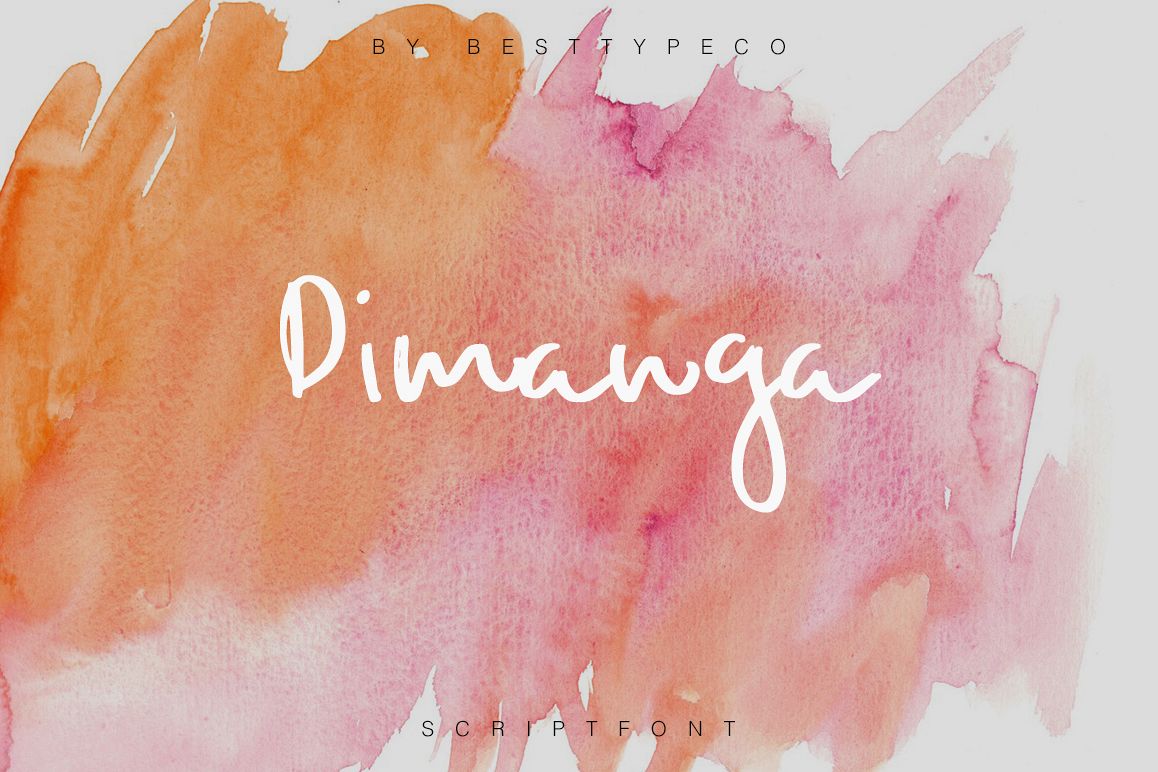
Dimanga - a new fresh handmade calligraphy font. Very suitable for greeting cards, branding materials, business cards, quotes, posters, and more!This font are perfect for wedding postcard. Or you can create perfect and unique design of your logo, blog, stationery, marketing, magazines and more :) MAGIC FONT Dimanga OTF Dimanga TTF Dimanga WOFF